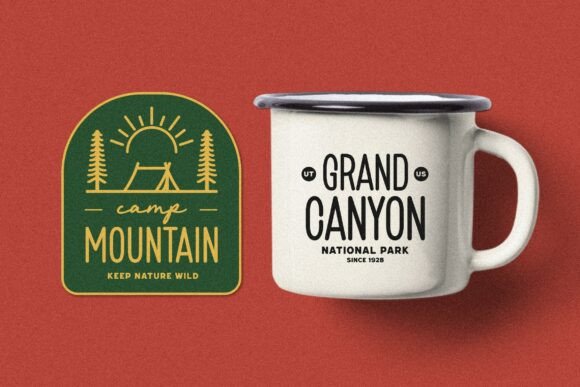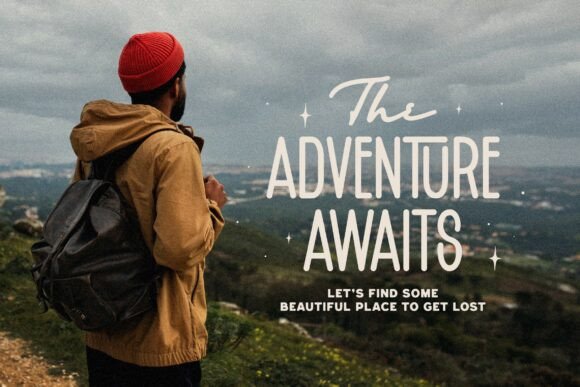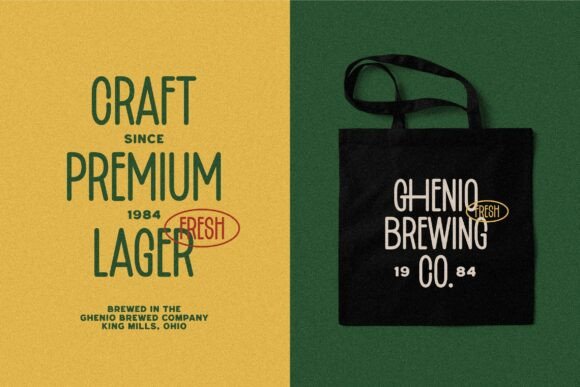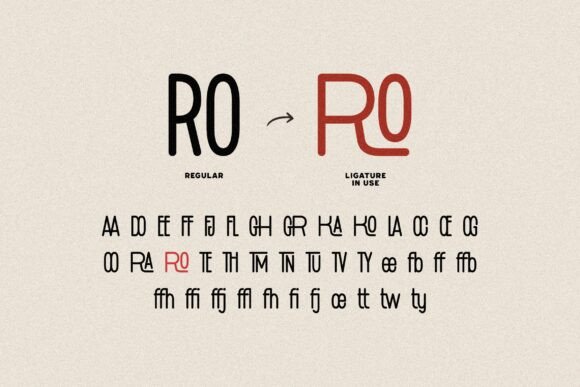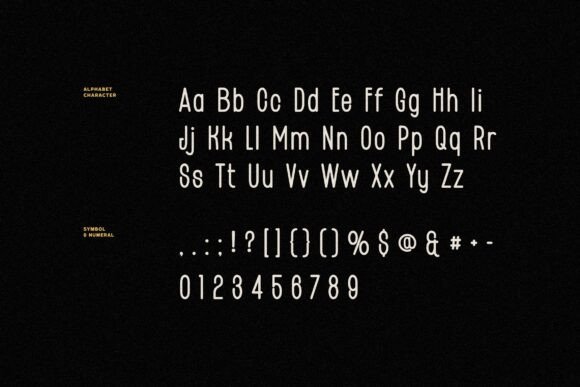
Introduction to Roesatu Font
Roesatu is a condensed vintage sans serif font that effortlessly blends retro vibes.
Perfect for branding, packaging, posters, and apparel Whether youโre designing for adventure brands, craft beverages, or lifestyle products, Roesatu brings a touch of nostalgia.
Key Features of Roesatu Font